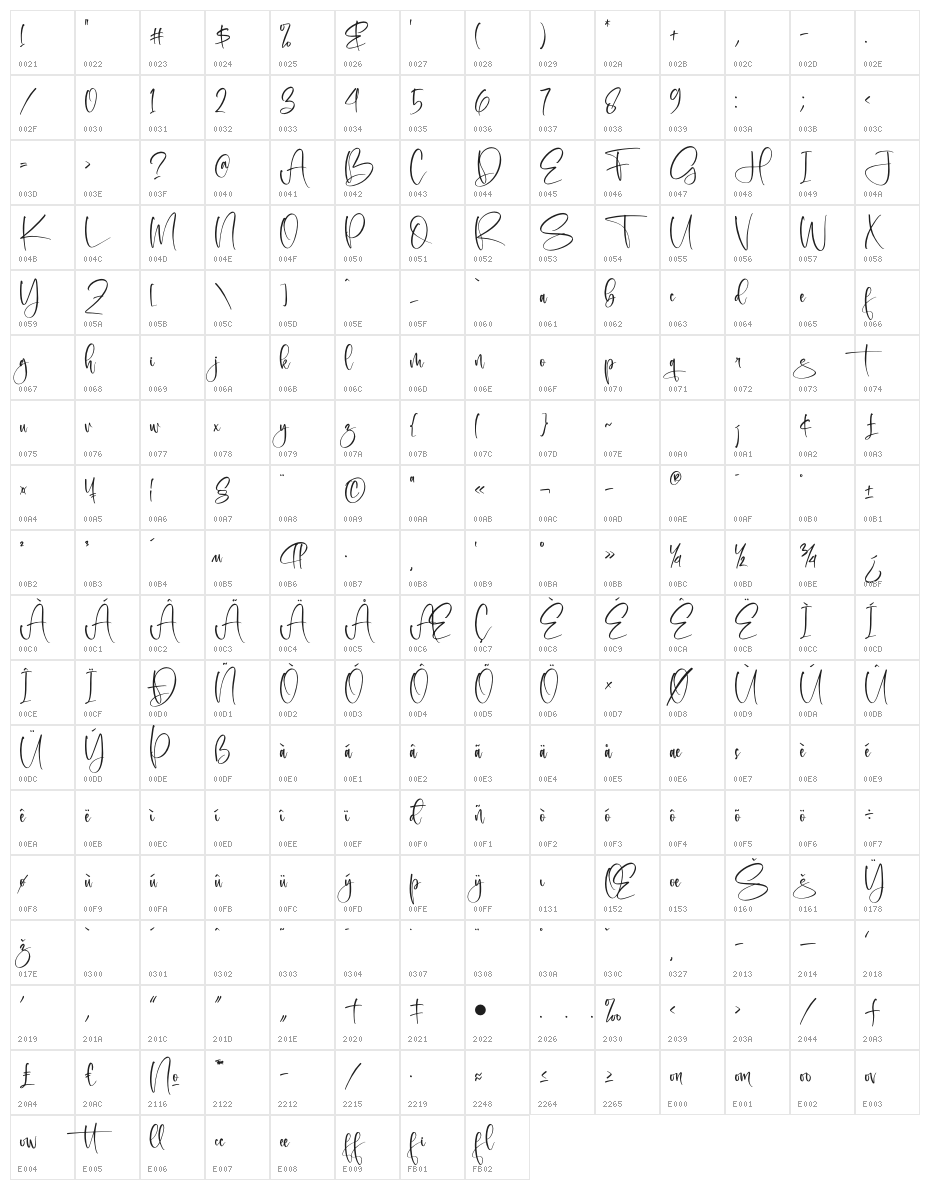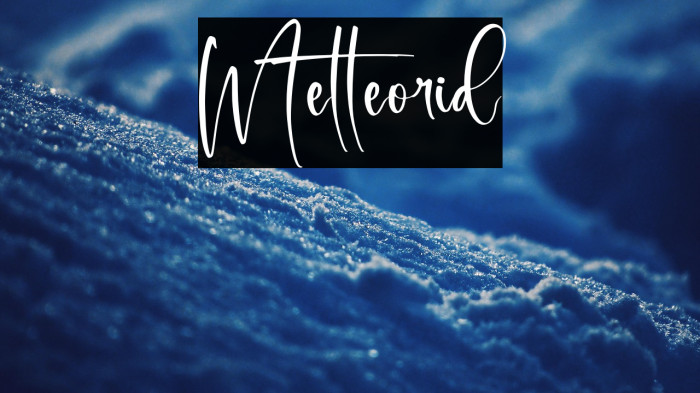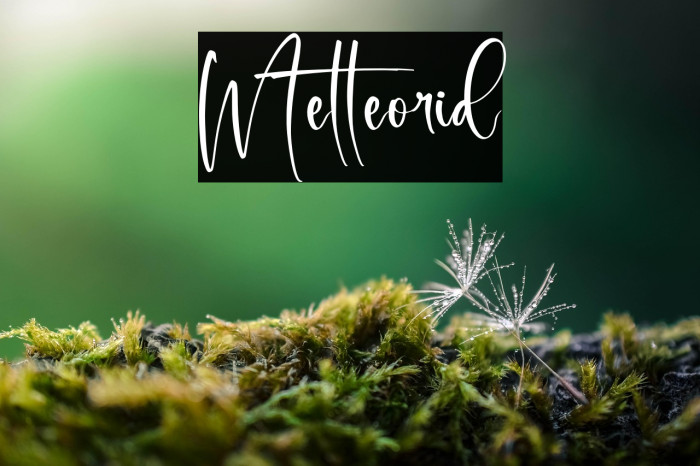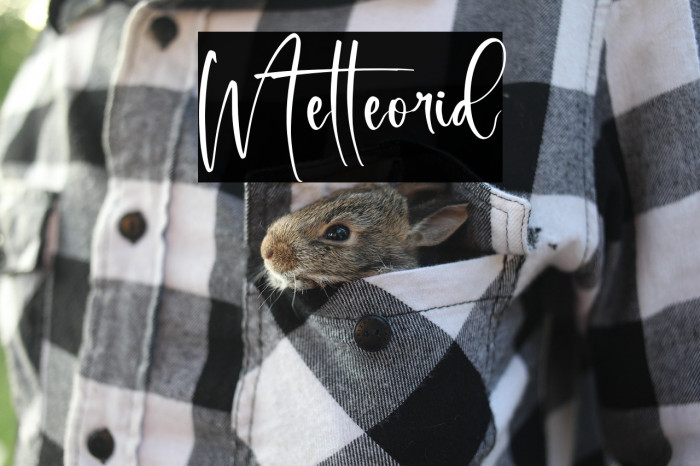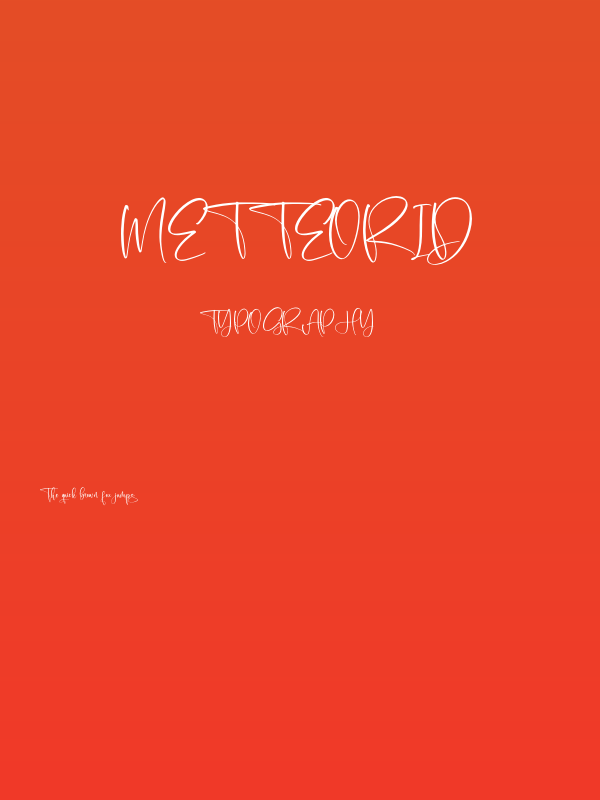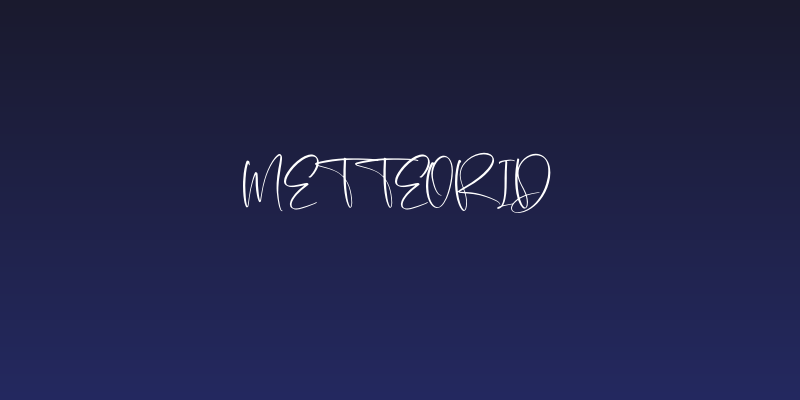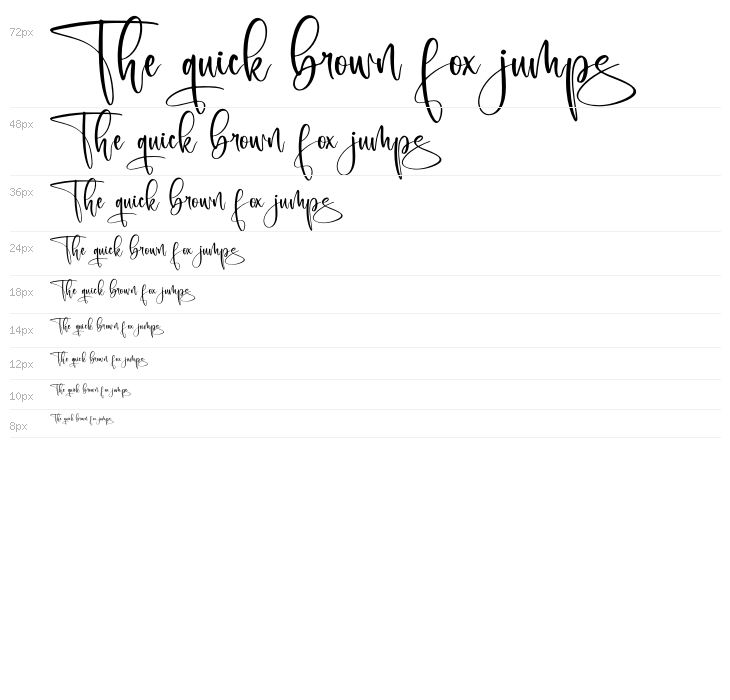
Metteorid Font
Metteorid Description
This font features a dynamic and expressive handwritten style, characterized by its fluid and flowing letterforms. The uppercase letters exhibit a playful and artistic flair, with varying stroke widths that add a sense of movement and energy. The lowercase letters maintain a consistent style, offering a harmonious blend of elegance and casualness. The numerals are crafted with the same attention to detail, ensuring readability while maintaining the font's unique character. Special characters are thoughtfully designed to complement the overall aesthetic, making this font versatile for various creative applications.
| Proposed Projects | Ideal for wedding invitations, greeting cards, branding projects, and social media graphics. |